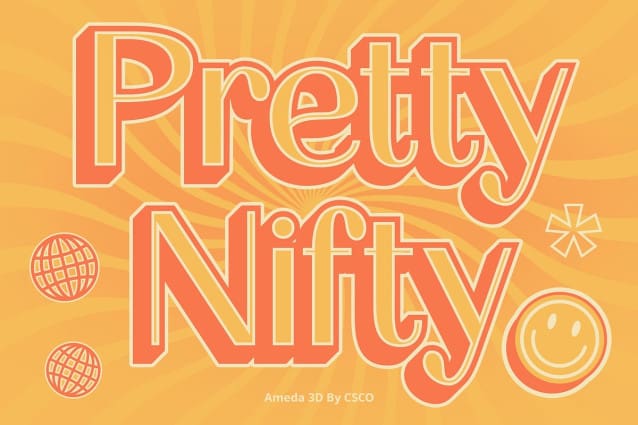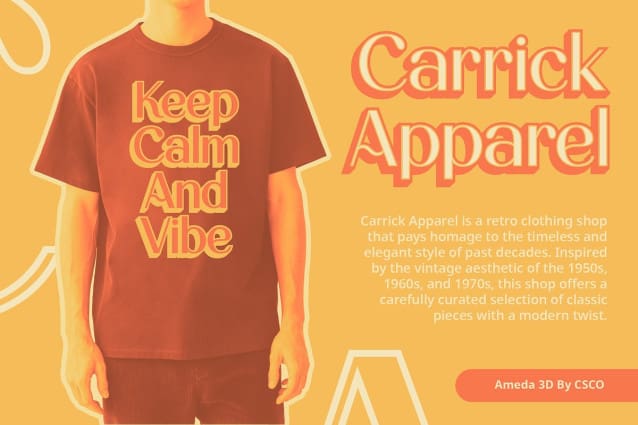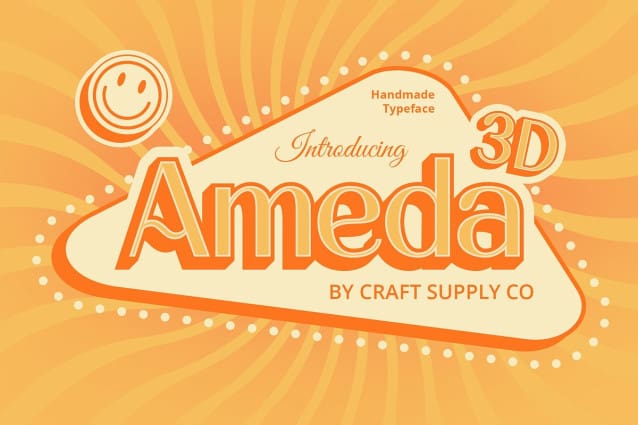
Ameda 3D Font
Ameda 3D Font: Redefining Display Typography. Striking High Contrast Ameda 3D features a sans serif design characterized by bold high contrast, enhancing its visual impact. Its sharp lines and pronounced differences in stroke thickness ensure attention-grabbing display.
Dimensional Depth with 3D Effects With its innovative 3D effects, This font transcends traditional flat typography. Each letter is imbued with depth and dimensionality, creating a dynamic visual experience that captivates the audience.
Tailored for Display Purposes Crafted specifically for display needs, This font excels in various applications, from headlines to branding materials. Its bold silhouette and three-dimensional appearance make it an ideal choice for catching the eye.
Versatile and Impactful Beyond its captivating aesthetics, This font offers versatility in usage, seamlessly blending into diverse design contexts. Whether used in digital interfaces or printed media, its high contrast and 3D effects leave a lasting impression.
Bold Display Statement This font redefines display typography with its striking high contrast and innovative 3D effects. Designed to command attention, it offers versatility and impact, making it a standout choice for any display project. Experience the power of This font and elevate your designs to new heights.